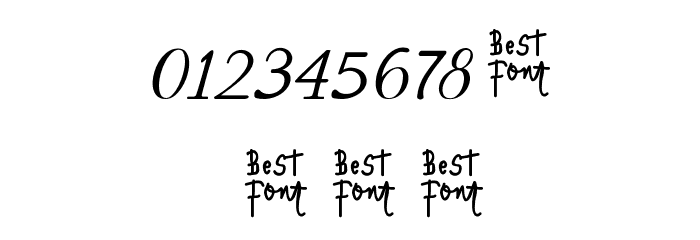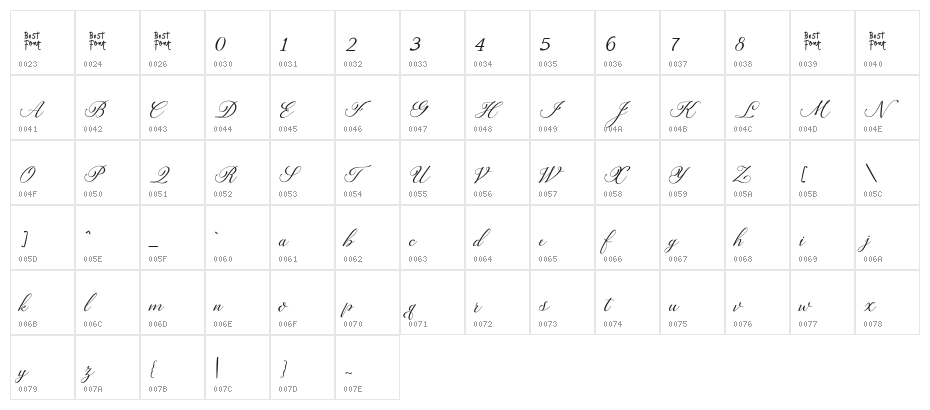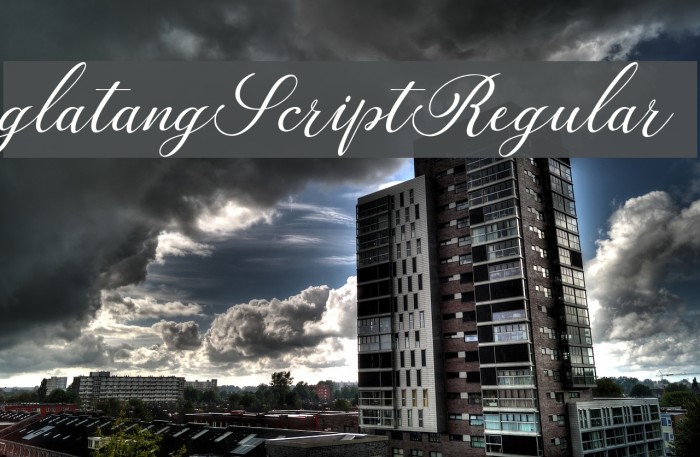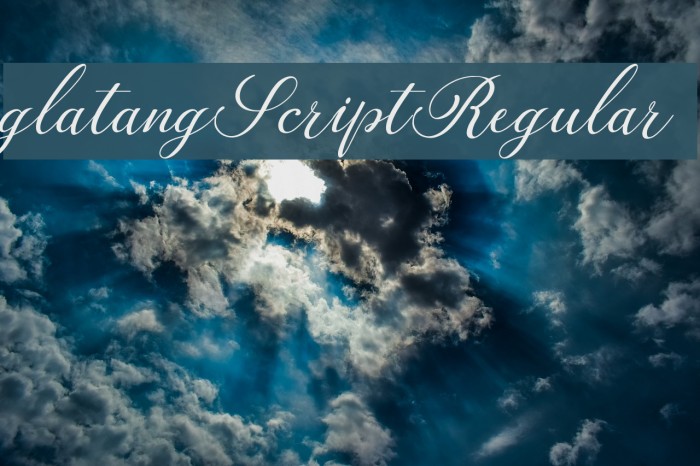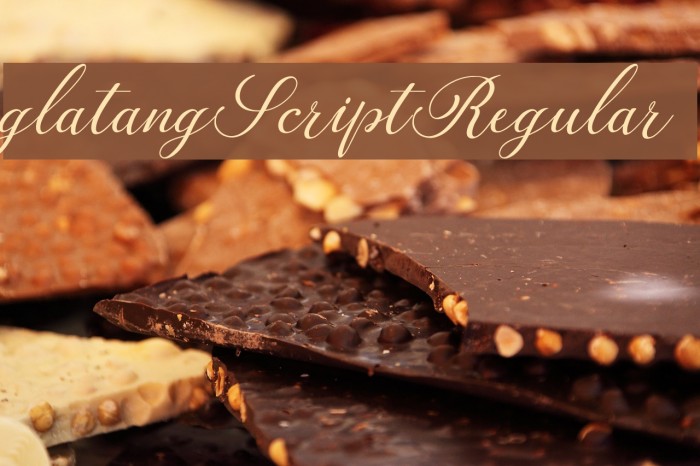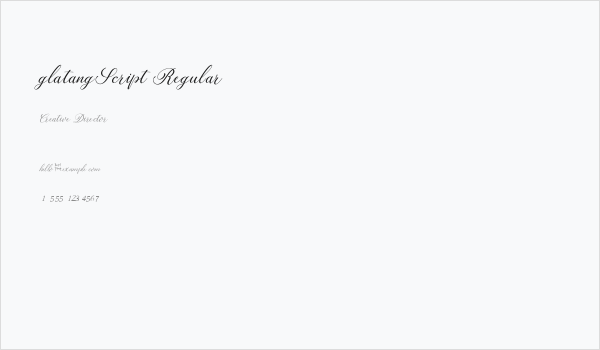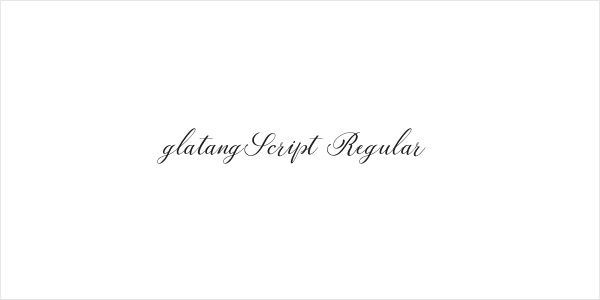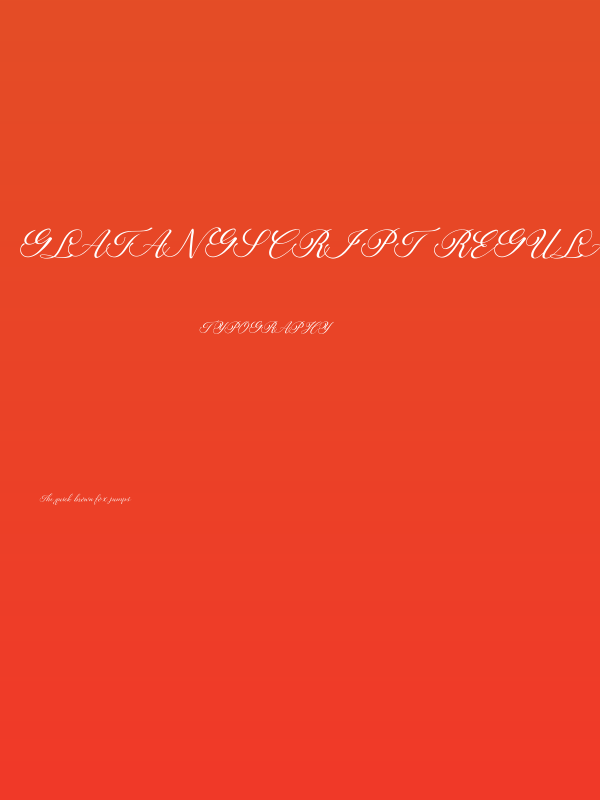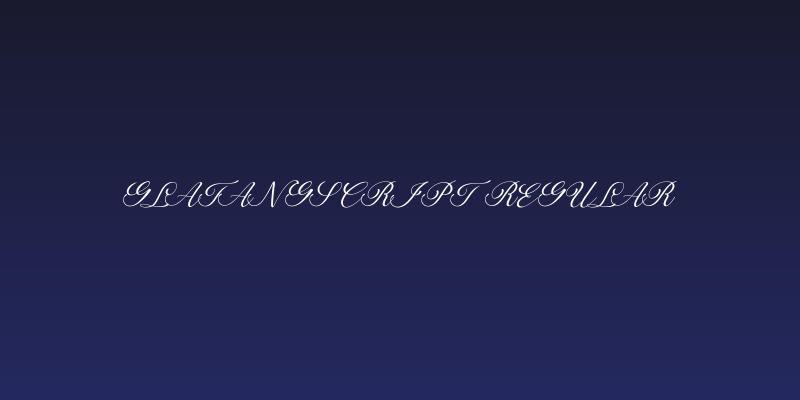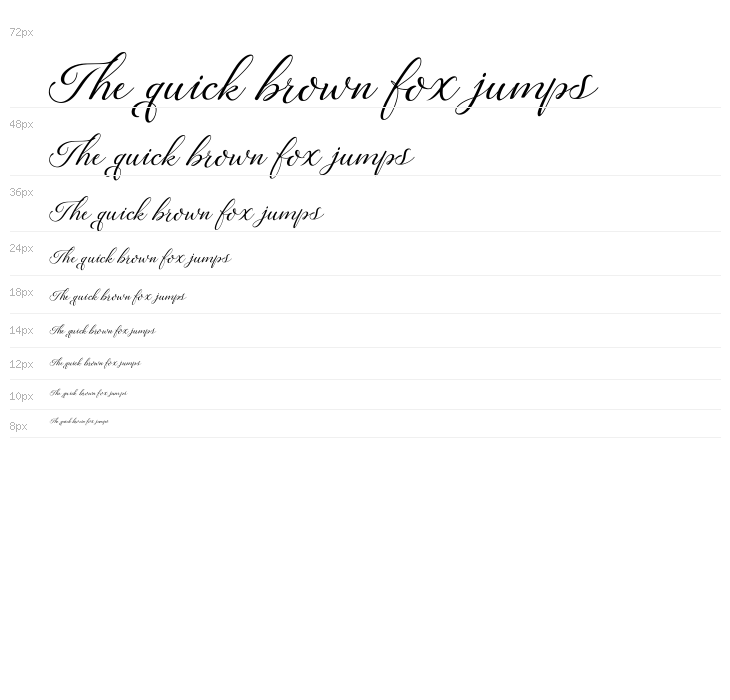
glatangScript-Regular Font
glatangScript-Regular Description
This elegant script font features flowing, cursive letters with a classic and sophisticated style. The uppercase letters are beautifully ornate, with sweeping curves and delicate flourishes that add a touch of elegance. The lowercase letters maintain a consistent flow, enhancing readability while preserving the decorative nature of the script. Numbers and special characters are designed to match the overall aesthetic, ensuring a cohesive look across all text. This font is perfect for projects that require a touch of class and sophistication, such as wedding invitations, formal event programs, and upscale branding materials.
Overall StyleClassic
Use CaseHeadlines, Invitations, Branding
Proposed ProjectsIdeal for wedding invitations, formal event programs, upscale branding, and elegant stationery.